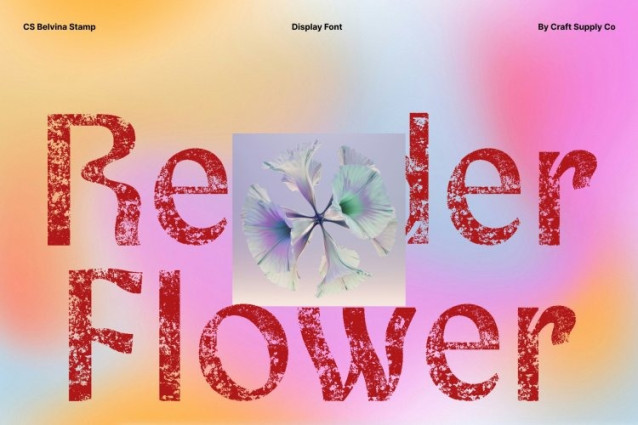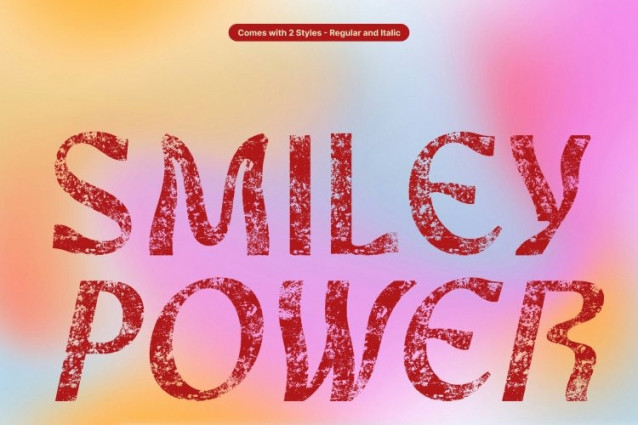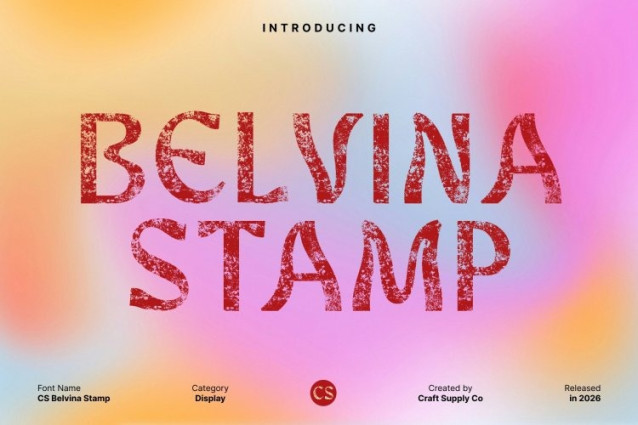
CS Belvina Stamp Font
CS Belvina Stamp Font This is a modern display font infused with psychedelic flair and enhanced by a stamped effect that brings an organic, vintage character. Its bold forms and fluid motion create a visually experimental look, while the textured finish adds depth and an artistic, handcrafted feel that elevates its expressive personality.
Bold, Flowing Letterforms with Artistic Imperfection
Defined by thick strokes and flowing shapes, this font radiates movement and creativity. The stamped texture introduces subtle imperfections, giving each character a raw, tactile quality that feels alive and expressive. This blend of psychedelic rhythm and aged texture results in typography that feels both dynamic and authentic.
Ideal for Experimental and Creative Projects
Perfect for posters, album artwork, promotional materials, and experimental graphic design, this font thrives in projects that celebrate individuality and bold expression. Its energetic structure combined with vintage stamp details makes it ideal for designs that aim to feel artistic, unconventional, and visually striking.
Make a Bold and Artistic Statement
This font is designed for creators who want their typography to speak loudly and creatively. With its psychedelic style, dynamic flow, and stamped vintage texture, this font transforms text into an artistic statement bold, expressive, and unforgettable.